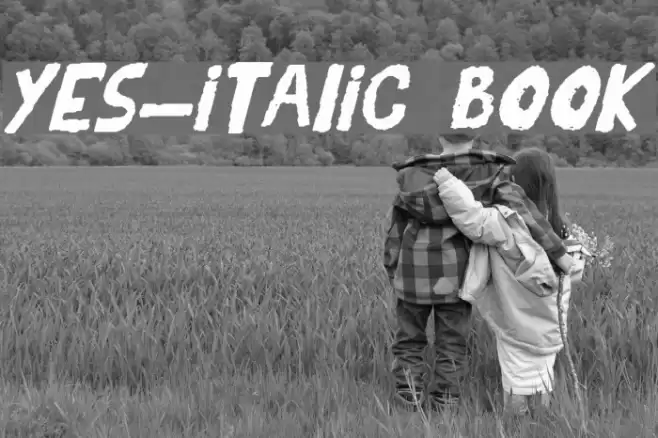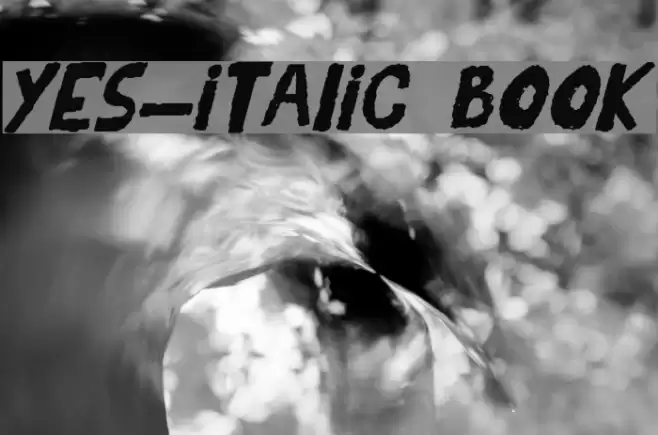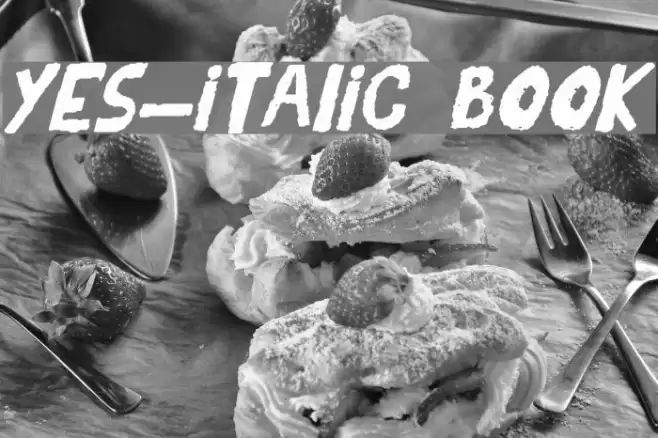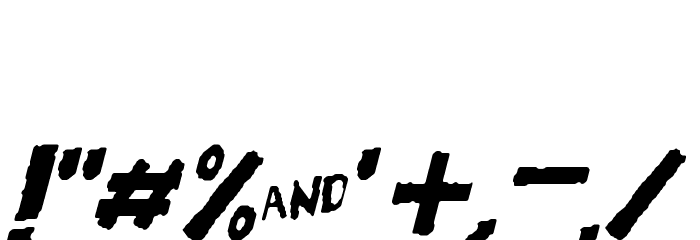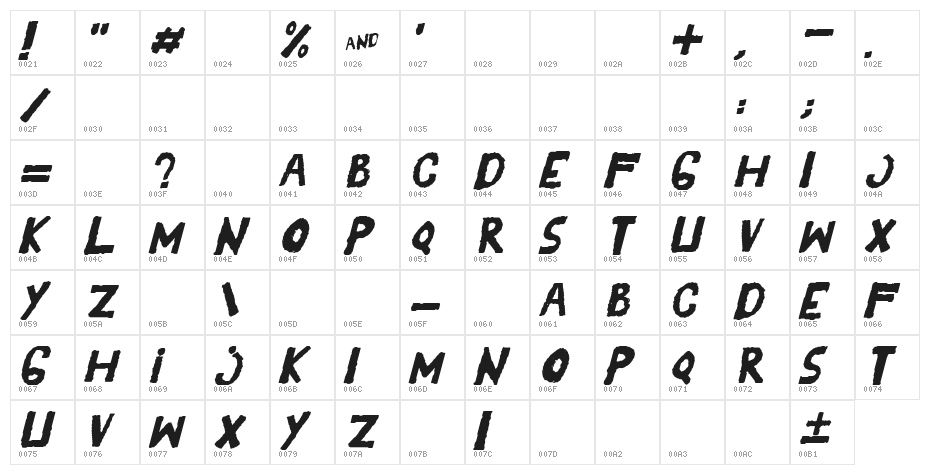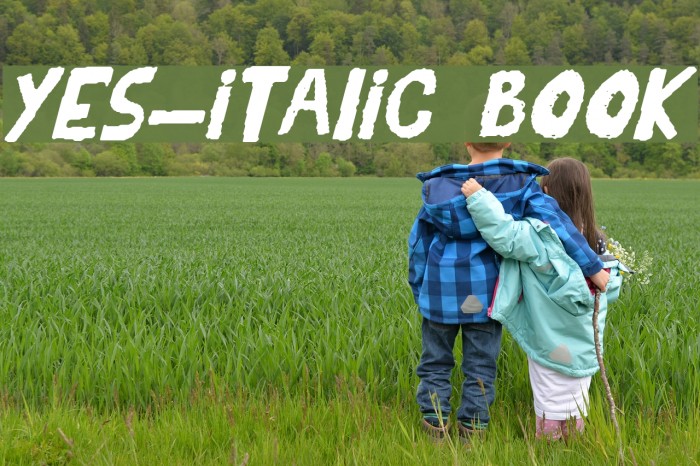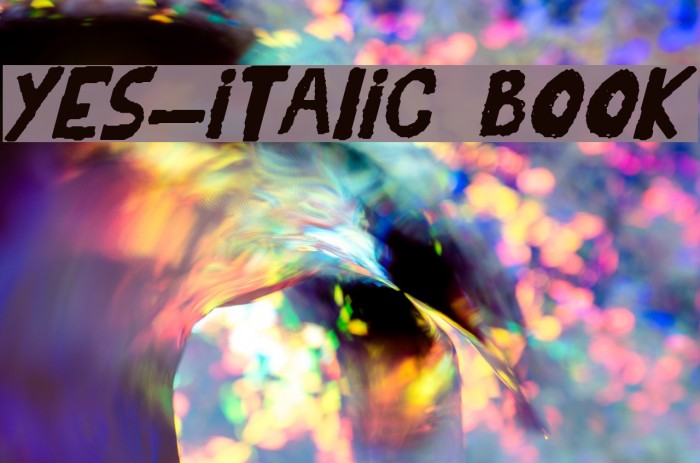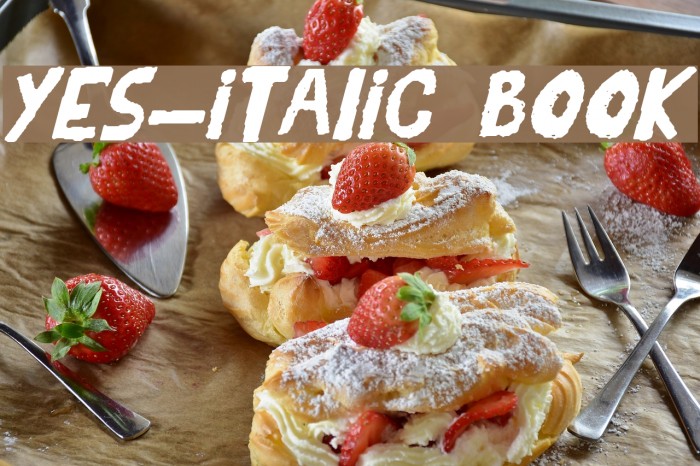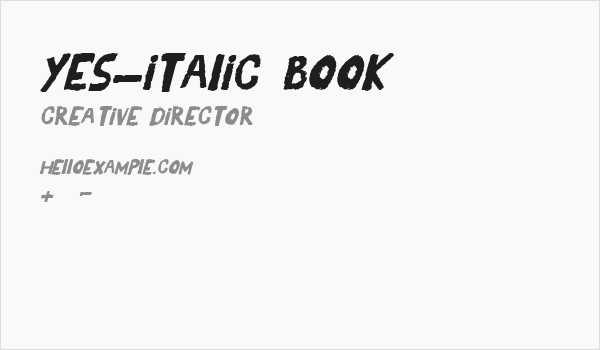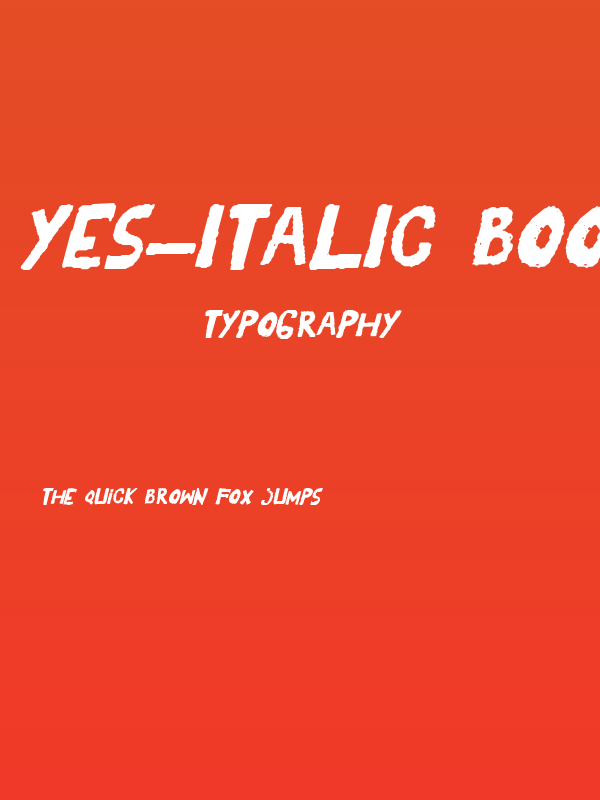
YES_italic Book Font
YES_italic Book Description
This font features a bold and dynamic style with a distinct italic slant, giving it a sense of movement and energy. The characters are crafted with a brush-like texture, adding a hand-drawn, artistic feel. The uppercase and lowercase letters maintain a consistent style, with slightly exaggerated curves and angles that enhance its expressive nature. The numerals and special characters are equally bold and maintain the same textured appearance, ensuring uniformity across all glyphs. This font's unique style makes it stand out, ideal for creative and impactful designs.
A bold, italic font with a brush-like texture and dynamic style from Uncategorized fonts.
- Proposed Projects: Ideal for posters, branding, and any project requiring a bold, artistic touch.